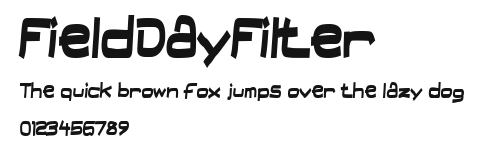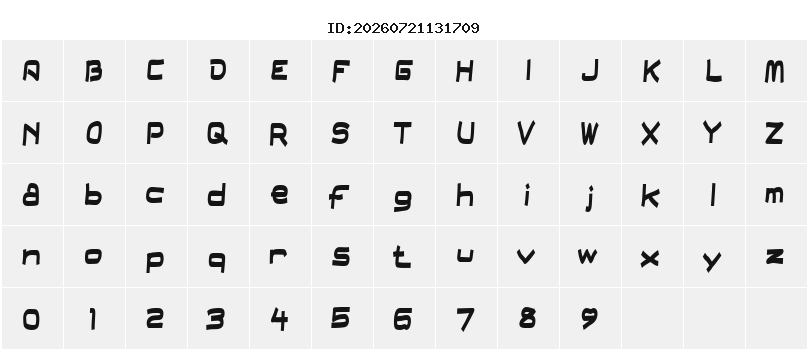
• Font Name: FieldDayFilter
About FieldDayFilter.ttf
FieldDayFilter.ttf is a modern, elegant sans-serif font designed for ultimate readability and visual harmony. Perfect for branding, headlines, web design, and print materials.